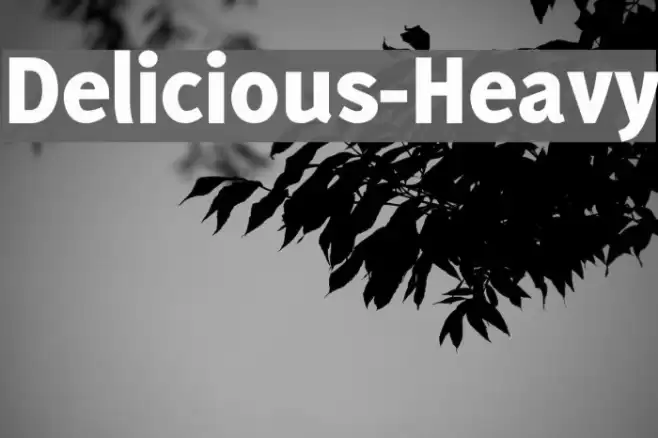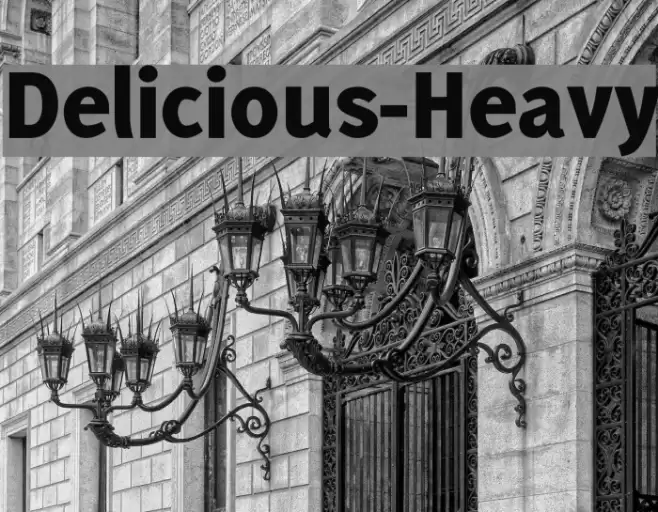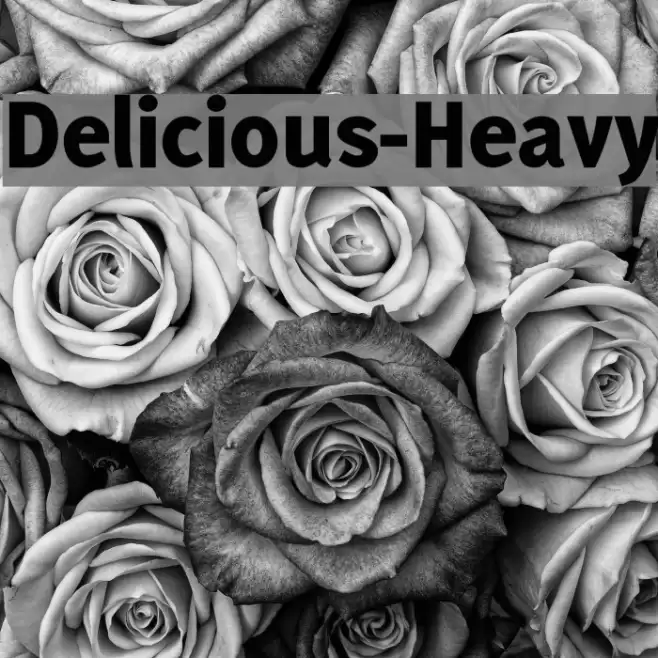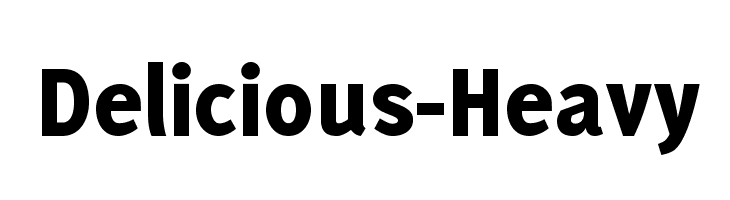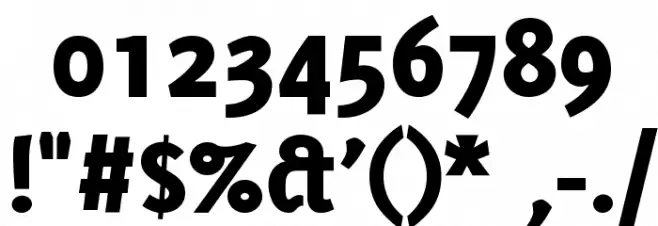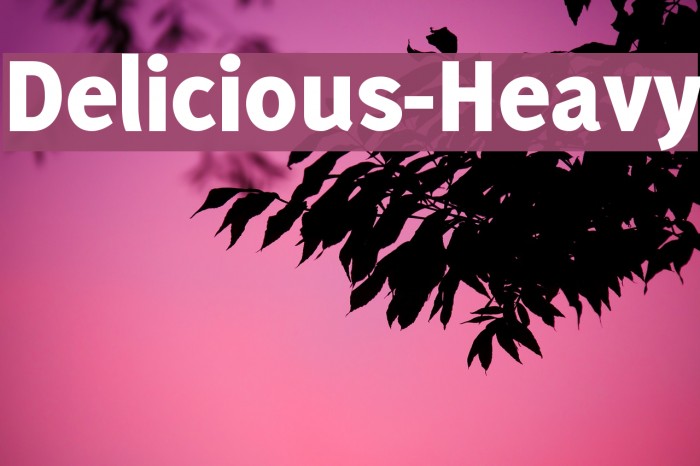
Delicious-Heavy Font
Delicious-Heavy Description
This font is characterized by its bold and heavy appearance, making it highly impactful and attention-grabbing. The letters are thick and robust, with a consistent stroke width that gives it a strong and confident presence. The characters are well-defined and clear, ensuring excellent readability even at smaller sizes. The font's design is modern and straightforward, with a slight curvature in some letters that adds a touch of softness to its otherwise solid structure. The numbers and special characters maintain the same boldness, ensuring uniformity across all glyphs. This font is ideal for making statements and drawing attention, suitable for various applications where a strong visual impact is desired.
A bold and heavy font with a strong, modern appearance from Uncategorized fonts.
- Proposed Projects: Ideal for headlines, posters, branding, and advertising where a strong visual impact is needed.